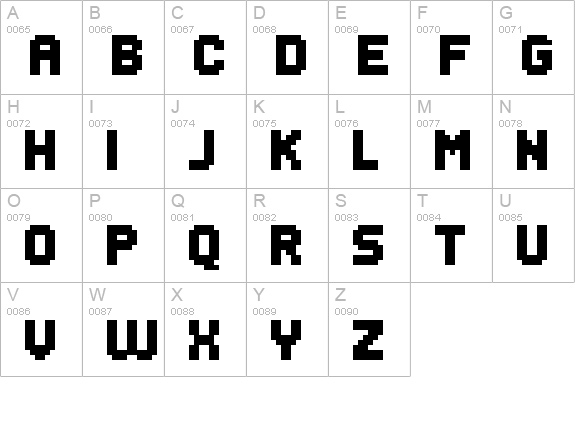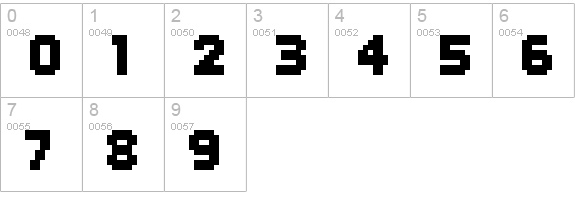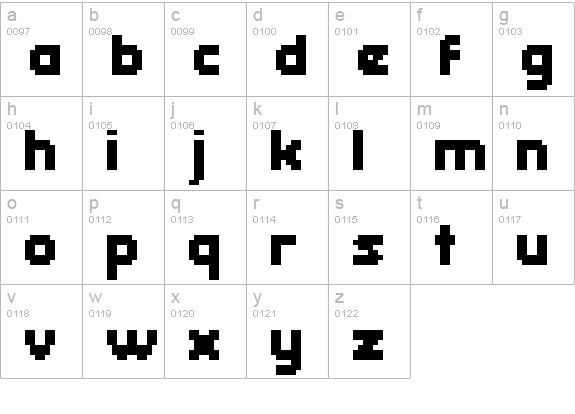
header 08_65 Font Details
Introducing header 08_65 font, a stunning typeface that combines elegance and versatility in one exquisite package. This font, with its clean lines and modern aesthetic, is perfect for a wide range of design projects, whether it's creating eye-catching headlines, sleek logos, or stylish branding materials. What sets header 08_65 font apart is not just its exceptional design, but also the fact that it is freely available for download at FontsMarket.com. Yes, you read that right - this incredible font can be yours completely free of charge! With just a few clicks, you can enhance your creative arsenal with a font that exudes professionalism and sophistication. The beauty of header 08_65 font lies in its versatility. Its bold and distinctive letterforms make a statement, while still maintaining a sense of elegance and readability. Whether you're working on a print project, website design, or any other creative endeavor, this font is sure to make a lasting impression. Creating visually stunning and impactful designs has never been easier with header 08_65 font. Its wide range of characters, including uppercase, lowercase, numerals, and punctuation marks, provide endless possibilities for customization and expression. So why wait? Experience the power of header 08_65 font today and elevate your designs to new heights. Download this remarkable font for free at FontsMarket.com and unlock a world of creative possibilities. Don't miss out on this incredible opportunity to enhance your design toolkit with a font that combines elegance, versatility, and affordability.